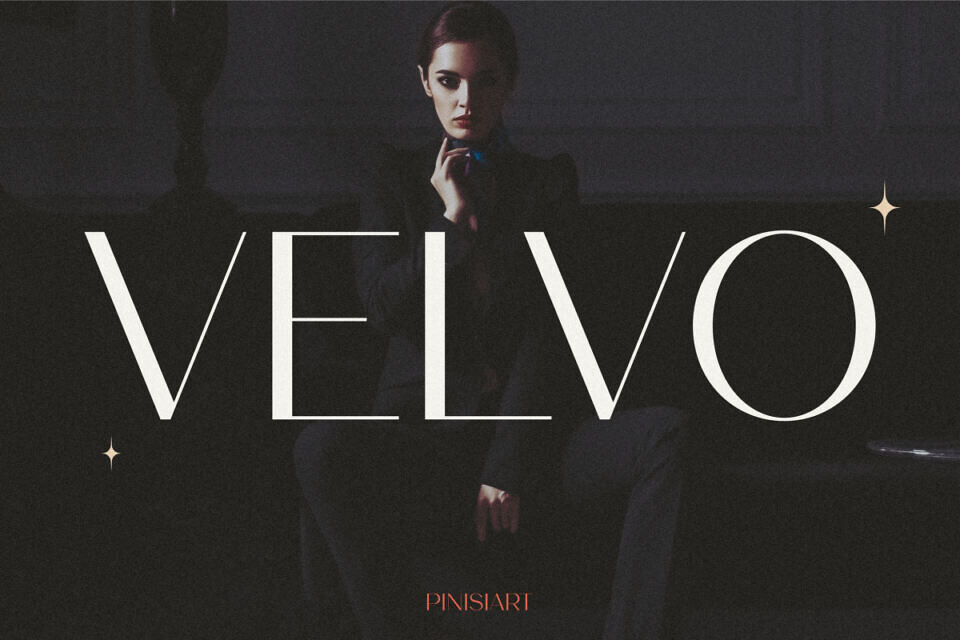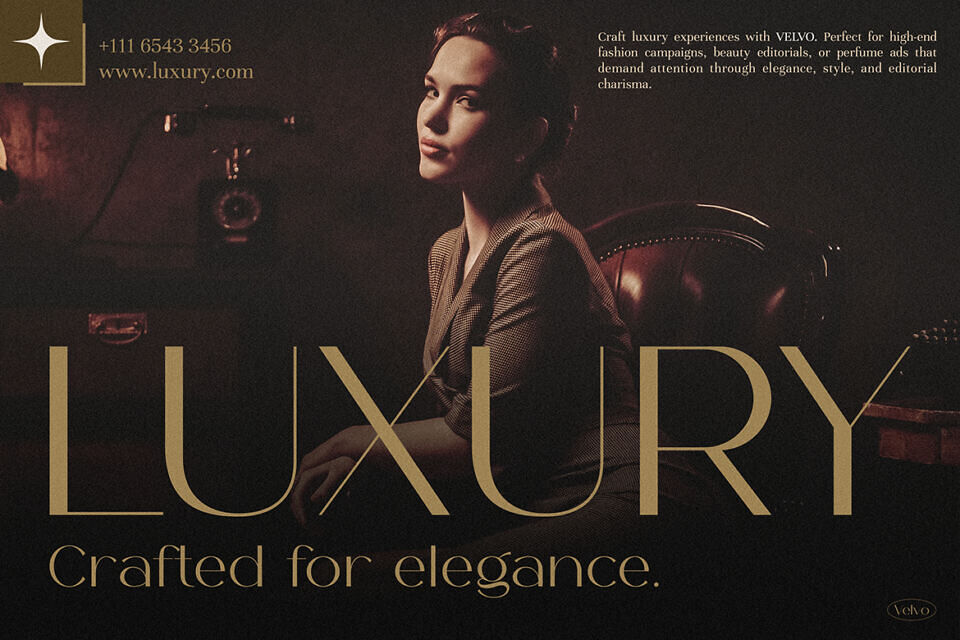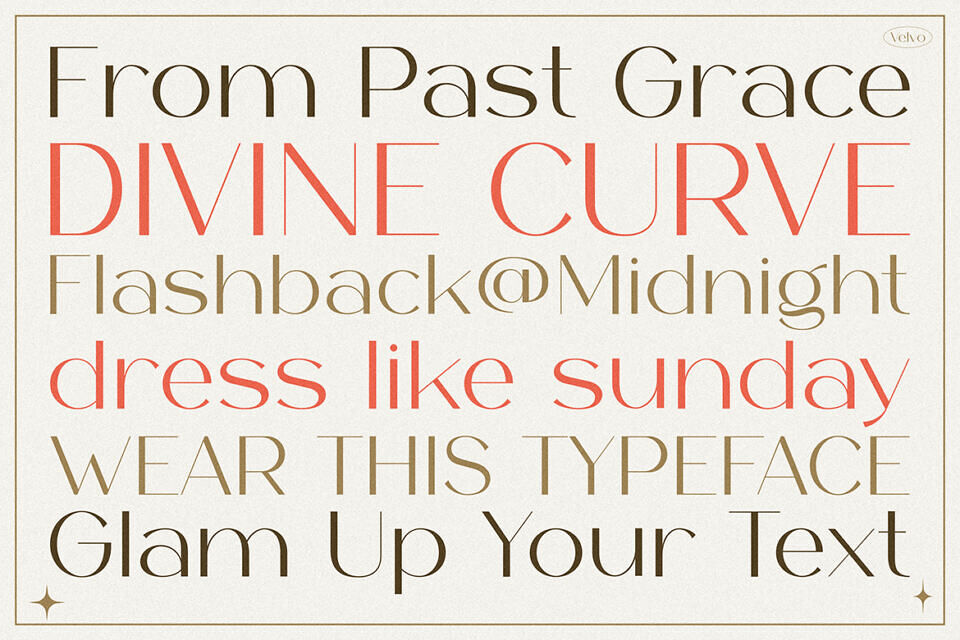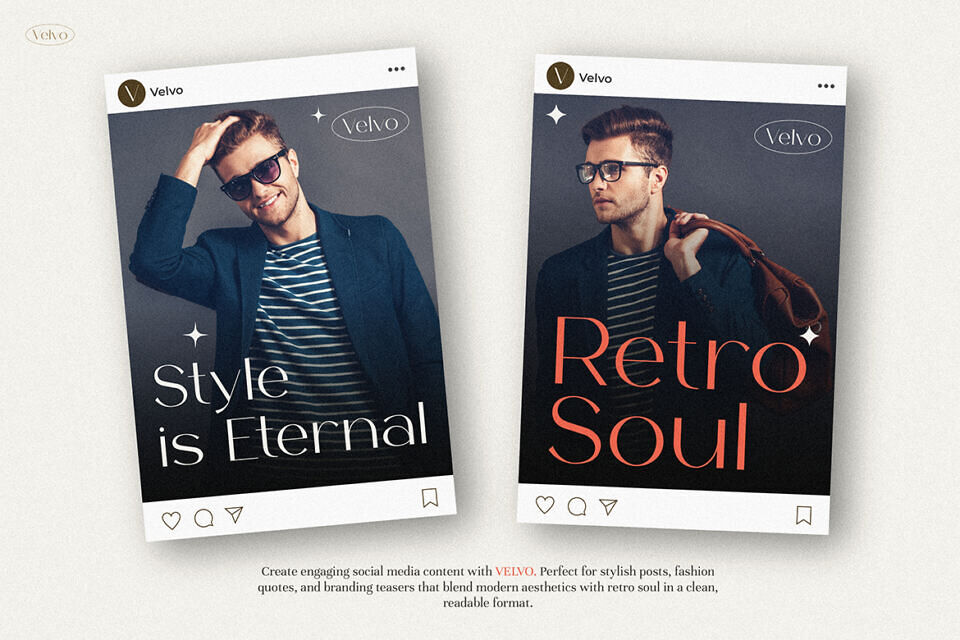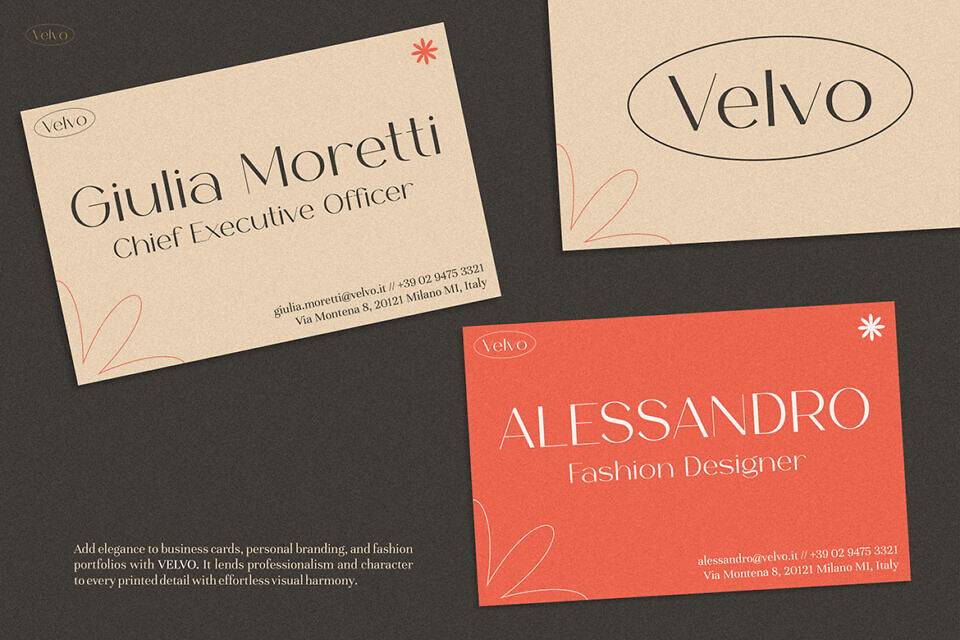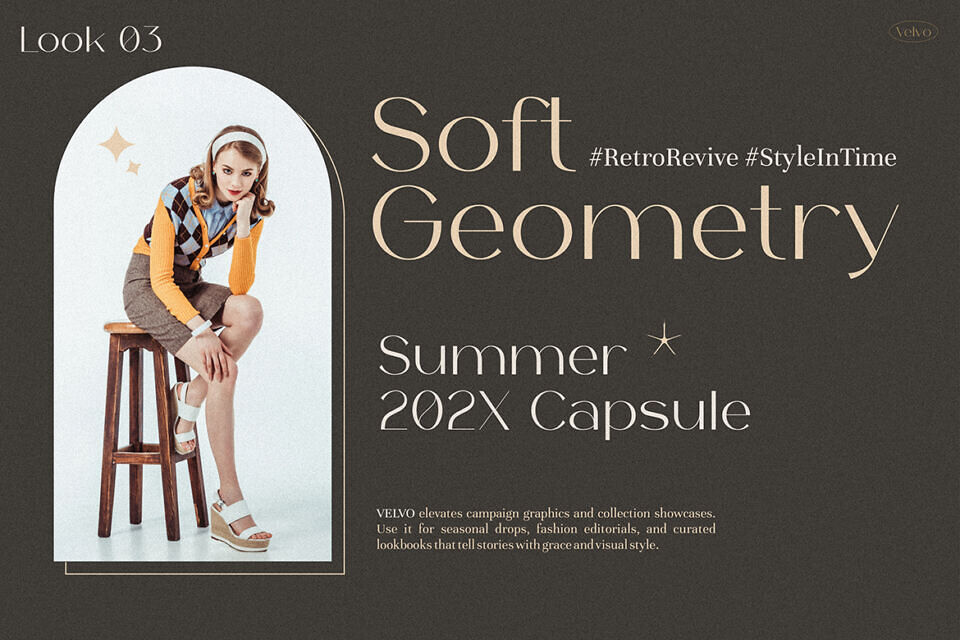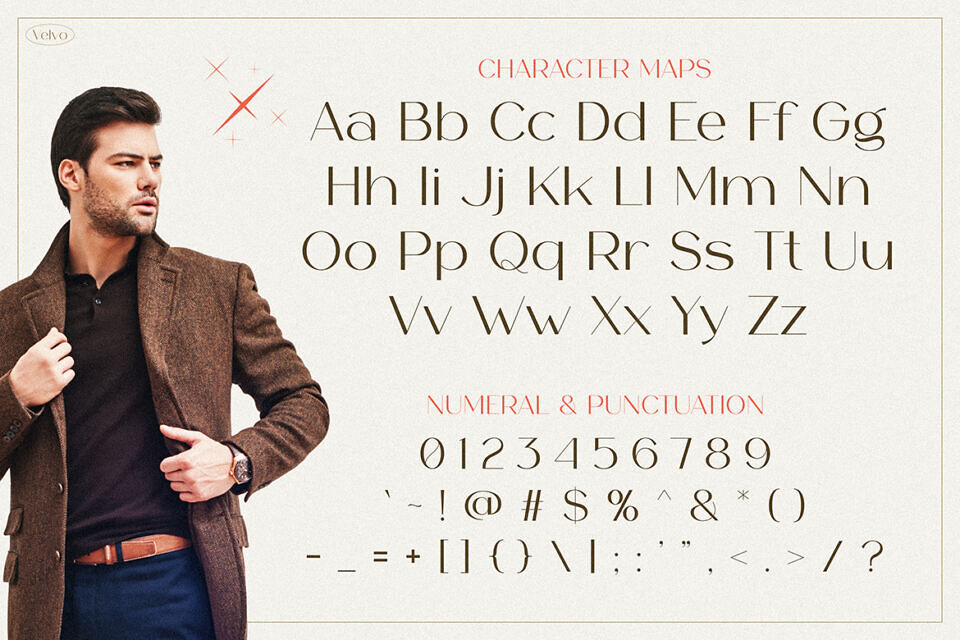
VELVO Font brings a refreshing mix of elegance and modern simplicity to your brand visuals. It stands out with sleek curves, clean lines, and a graceful balance. As a result, your message appears polished and stylish from the very first glance.
Each letterform is crafted with intention. Therefore, the font doesn’t just deliver information—it shapes a refined visual identity. Furthermore, the soft curves and generous spacing add a touch of luxury to every word. It’s ideal for creators who value aesthetics and function equally.
In addition, VELVO blends well with neutral tones and clean layouts. Whether you’re designing Instagram posts, fashion lookbooks, or editorial spreads, this font enhances your work effortlessly. Its minimalist design makes your content easy to read while still feeling upscale.